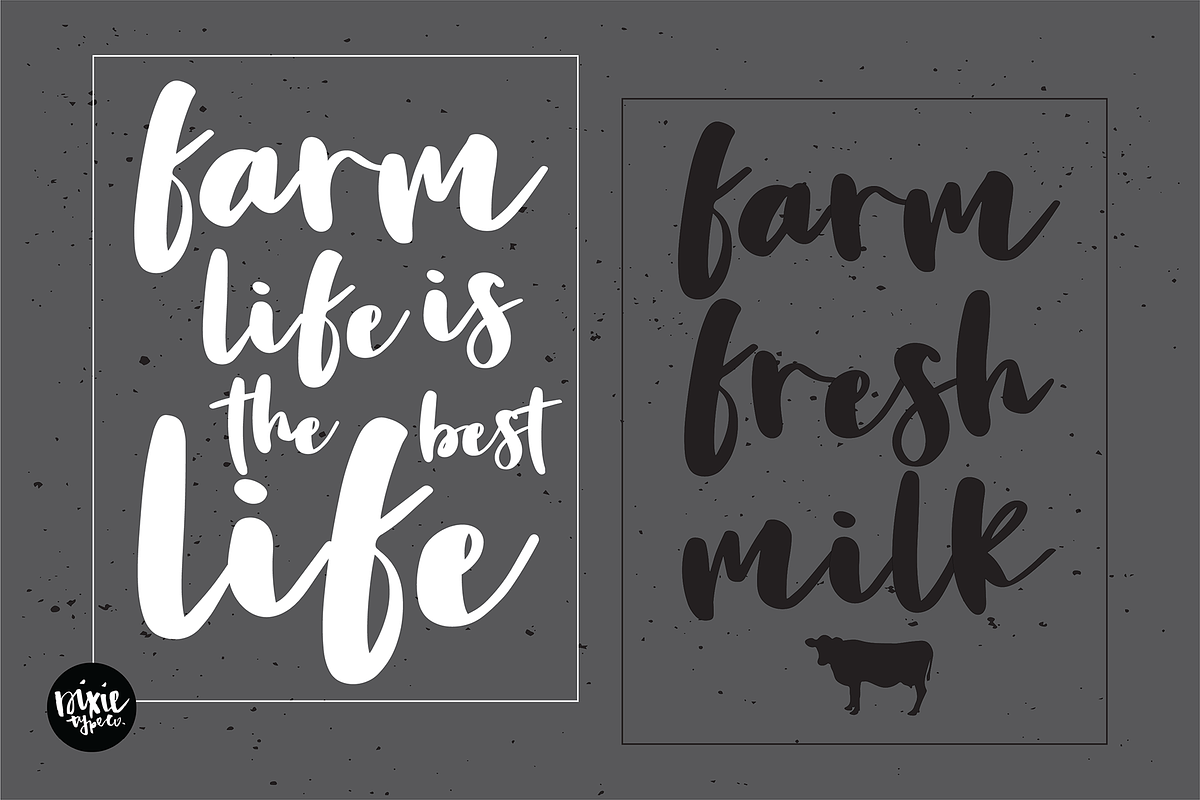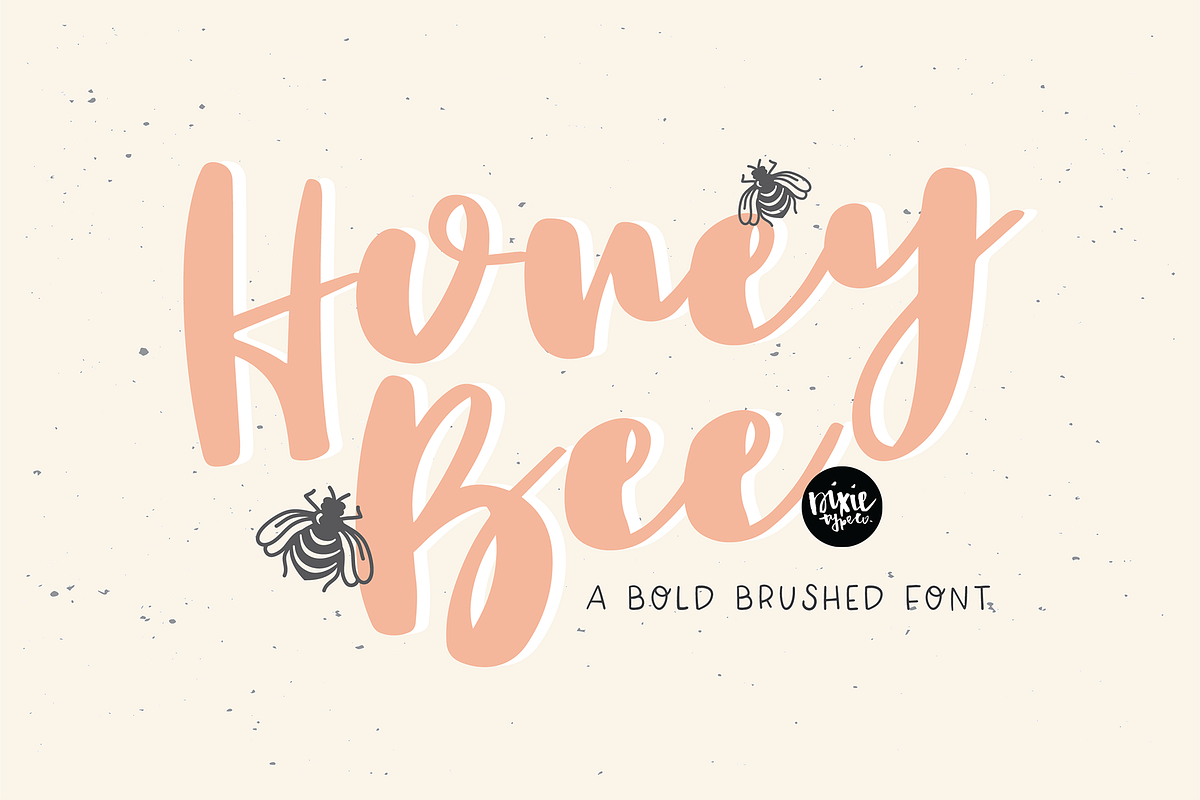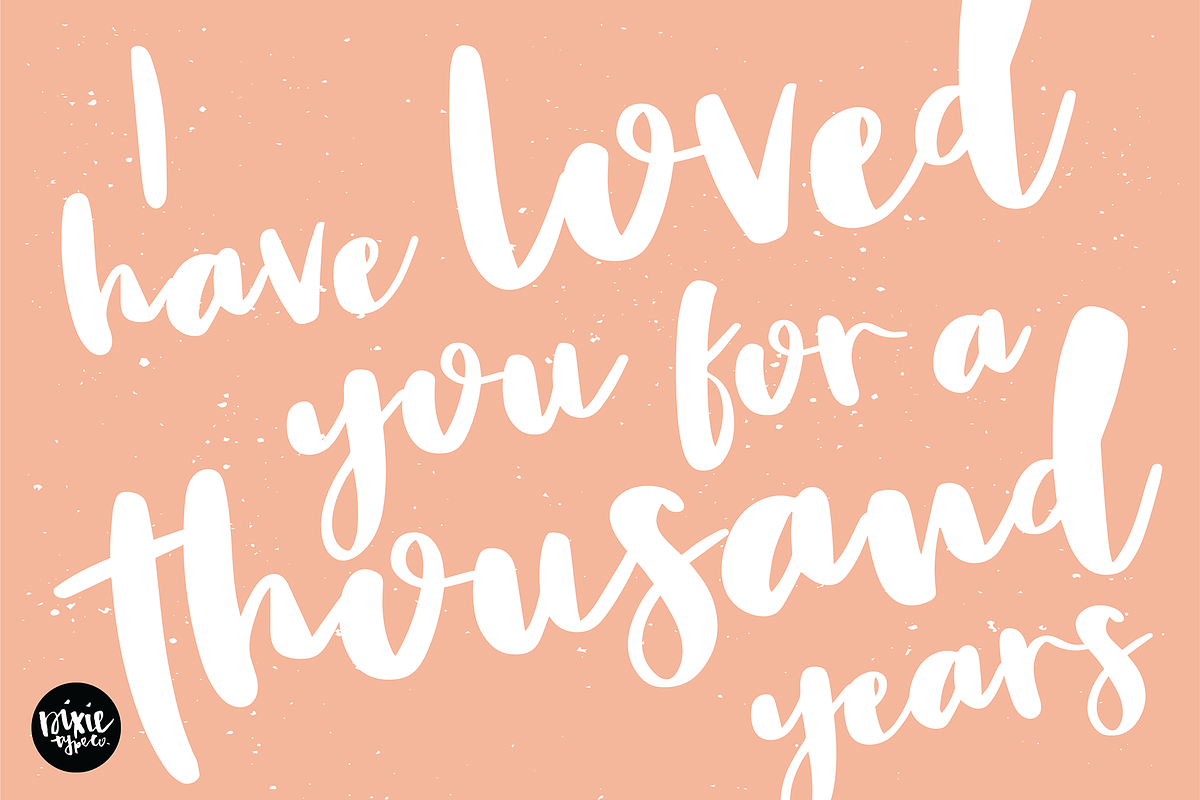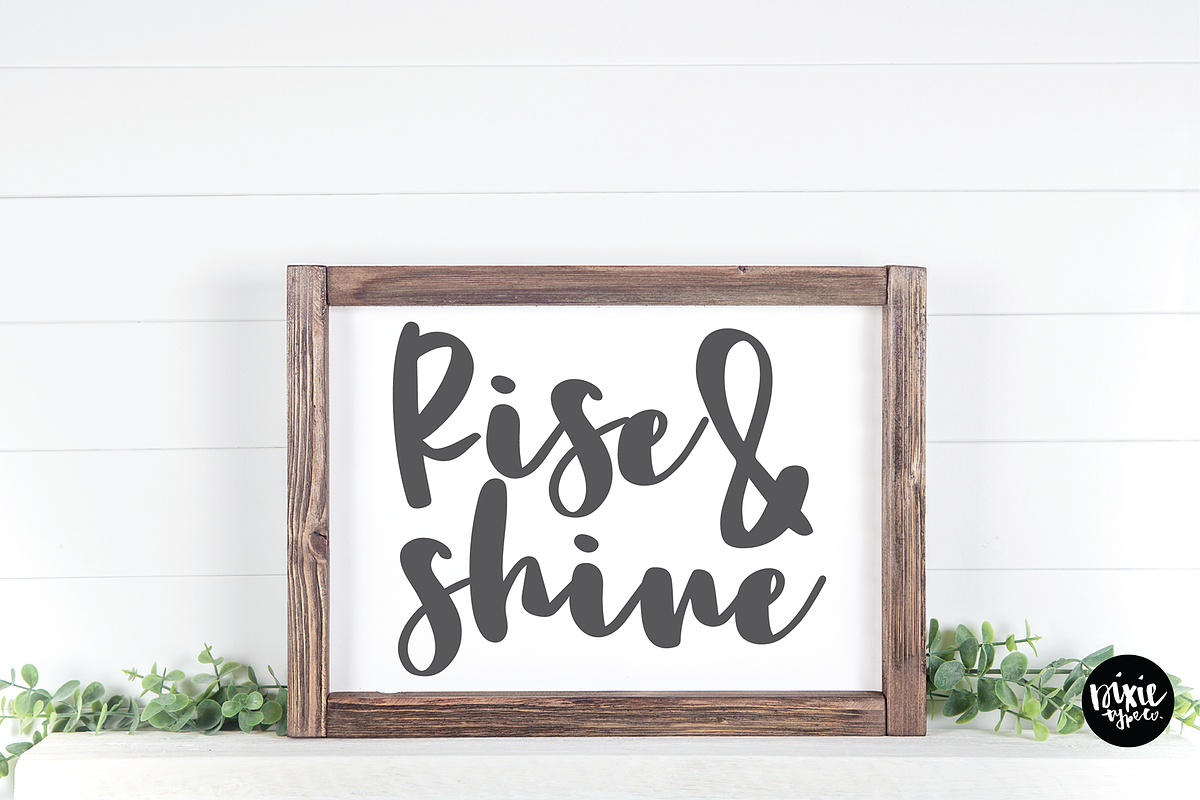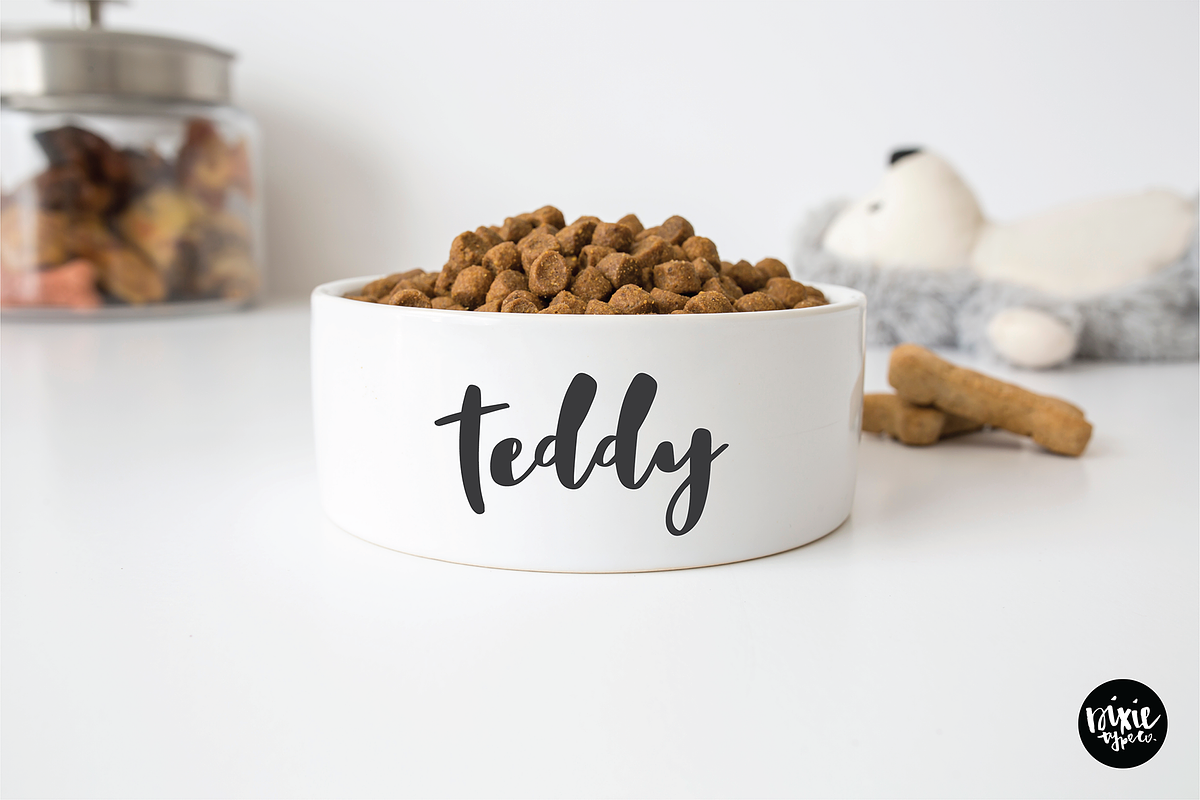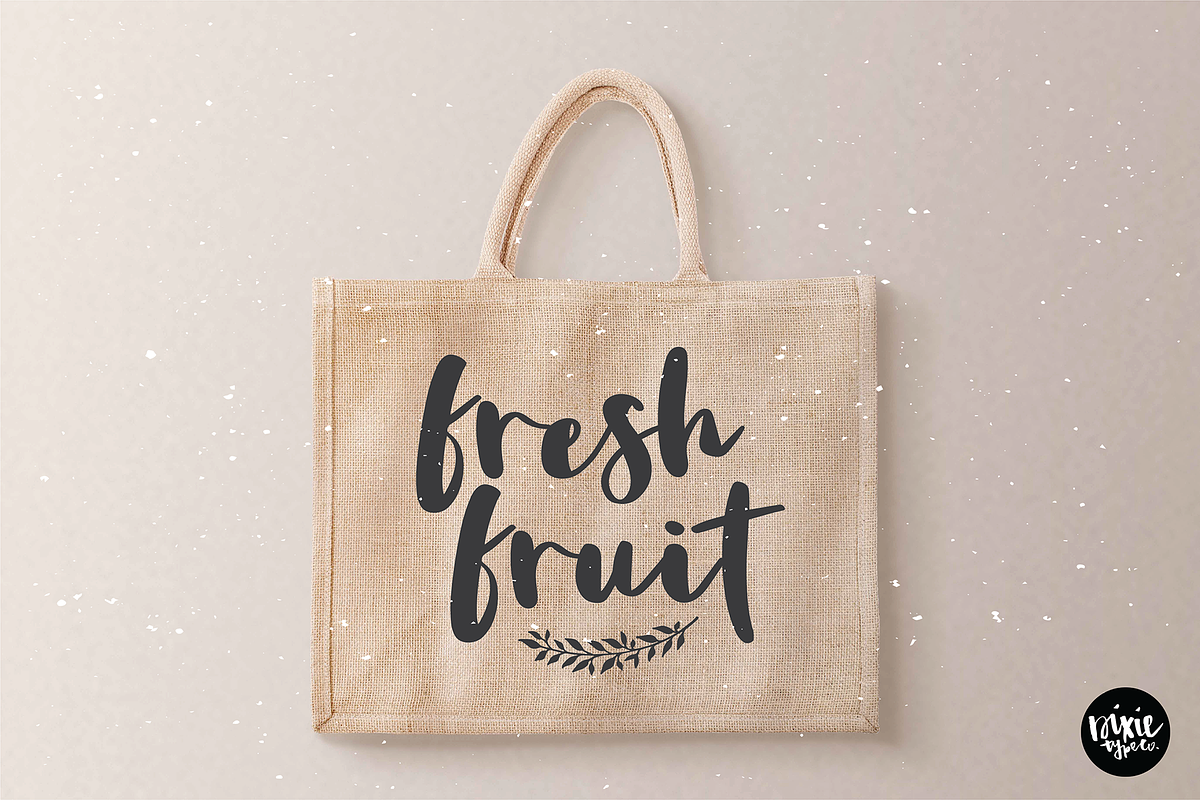
HONEY BEE a Bold Brush Script
{ A typographic font hand-lettered with love by Dixie Type Co. }
HoneyBee is a bold, farmhouse, brush lettered script font.